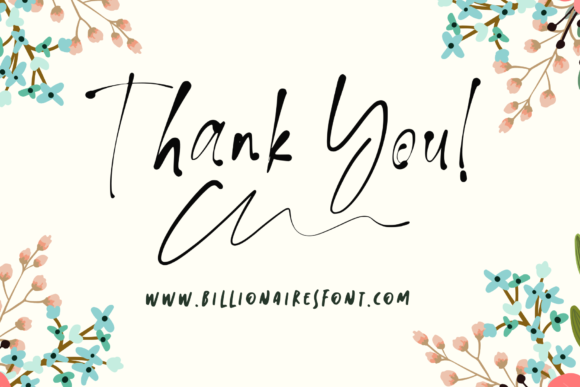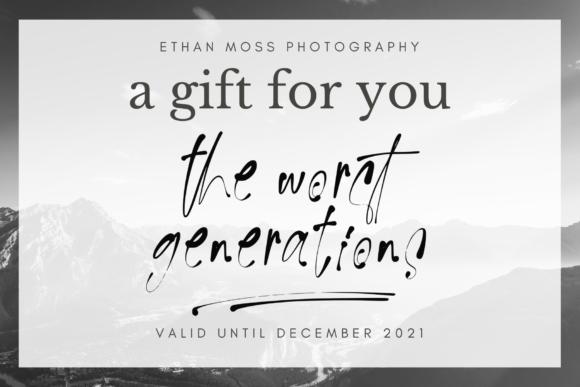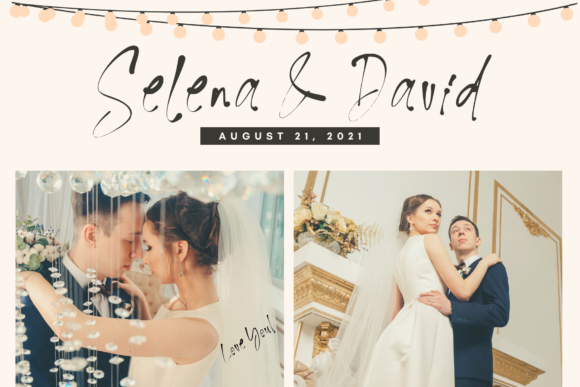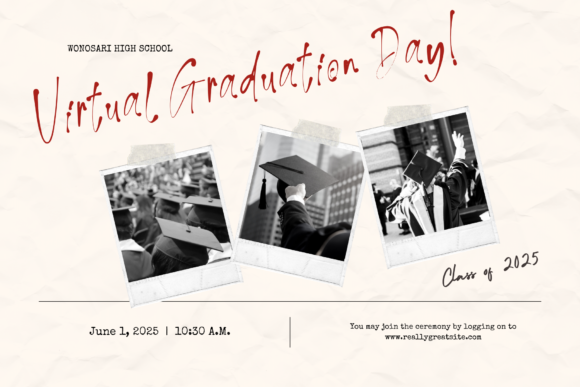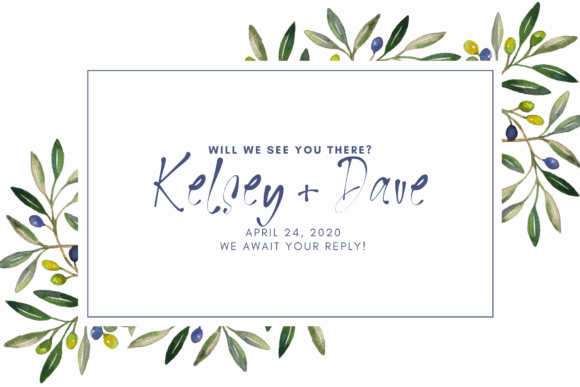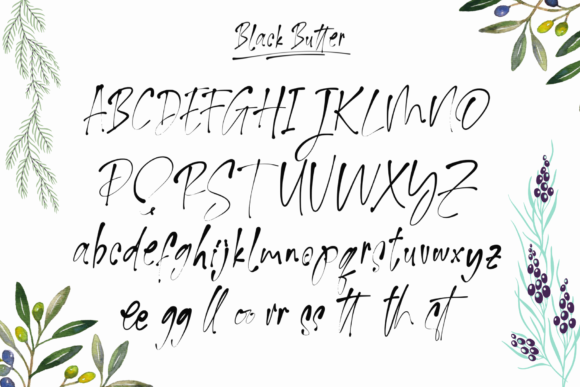
Discover the Magic of Black Butter Font: Elevate Your Designs with a Cool and Trendy Handwritten Style
Are you on the lookout for a font that can add a touch of coolness and trendiness to your designs? Look no further than the Black Butter Font. This stylish handwritten font is making waves in the design community, and for good reason. Its unique blend of elegance and playfulness makes it the perfect addition to any project. In this article, we’ll dive into the world of Black Butter Font, exploring its features, benefits, and uses, as well as provide tips on how to make the most of this amazing font.
What is Black Butter Font?
Black Butter Font is a modern, handwritten font that boasts a distinctive and stylish look. Its cool and trendy appearance makes it perfect for designers and crafters looking to add a personal touch to their work. Whether you’re creating a logo, branding materials, social media graphics, or craft projects, Black Butter Font is sure to impress.
Key Features of Black Butter Font
- PUA Encoded: One of the standout features of Black Butter Font is that it’s PUA (Private Use Area) encoded. This means that you can easily access all glyphs and swashes, giving you greater flexibility and creative control over your designs.
- Handwritten Style: The font’s handwritten style adds a personal and unique touch to any project. Its elegant yet playful appearance makes it suitable for a wide range of applications.
Benefits of Using Black Butter Font
So, why should you choose Black Butter Font for your next project? Here are just a few benefits:
- Adds a Personal Touch: With Black Butter Font, you can add a personal touch to your designs, setting them apart from the crowd.
- Versatile: The font’s versatility makes it suitable for a wide range of projects, from logos and branding materials to social media graphics and craft projects.
- Enhances Creativity: The font’s unique style and features can inspire creativity and help you think outside the box.
Uses of Black Butter Font
Black Butter Font is perfect for a variety of projects, including:
- Logos and Branding Materials: Create a lasting impression with a unique and stylish logo that reflects your brand’s personality.
- Social Media Graphics: Elevate your social media presence with eye-catching graphics that showcase your brand’s style.
- Craft Projects: Add a personal touch to your craft projects, such as handmade cards, invitations, and DIY decor.
Tips for Using Black Butter Font
To get the most out of Black Butter Font, here are a few tips:
- Experiment with Different Sizes and Colors: Play around with different sizes and colors to find the perfect combination for your project.
- Pair with Other Fonts: Combine Black Butter Font with other fonts to create a unique and visually appealing design.
- Use Swashes and Glyphs: Take advantage of the font’s PUA encoding to access swashes and glyphs that can add an extra touch of elegance to your design.
| Font Name | Black Butter Font |
| Author | aldedesign |
Black Butter Font is a game-changer for designers and crafters looking to add a cool and trendy touch to their work. With its unique handwritten style, PUA encoding, and ease of use, this font is sure to become a favorite in your design arsenal. So why wait? Discover the magic of Black Butter Font and elevate your designs to the next level.